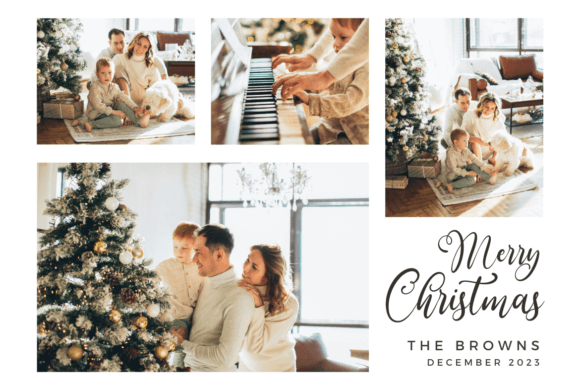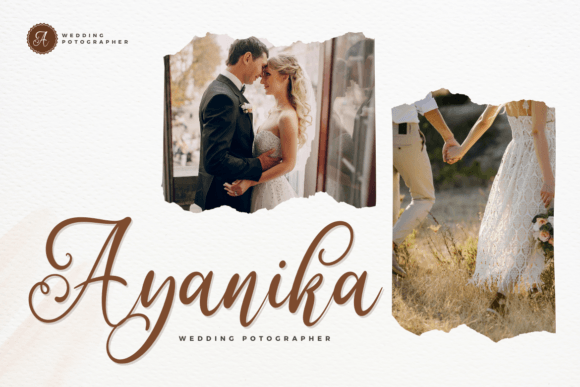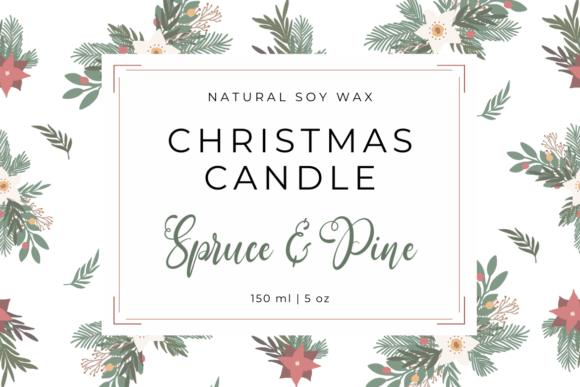
Introduction to Christa Bella Font
Christa Bella is a stunning and sophisticated font that radiates beauty and grace.
With its graceful flourishes and sweeping curves, this font is perfect for Christmas themes, wedding invitations, branding materials, and other projects where a lovely and stylish script is desired to create a timeless and elegant look Keep in mind that the font is PUA encoded, meaning that you can access all delightful glyphs and swashes effortlessly.
Key Features of Christa Bella Font